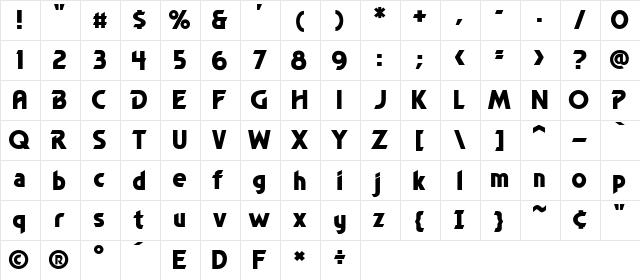
CCTimelord Regular
Design Context for CCTimelord Typeface
CCTimelord offers clean, dependable letterforms without strong stylistic allegiance, making it a practical choice for designers who need flexibility.